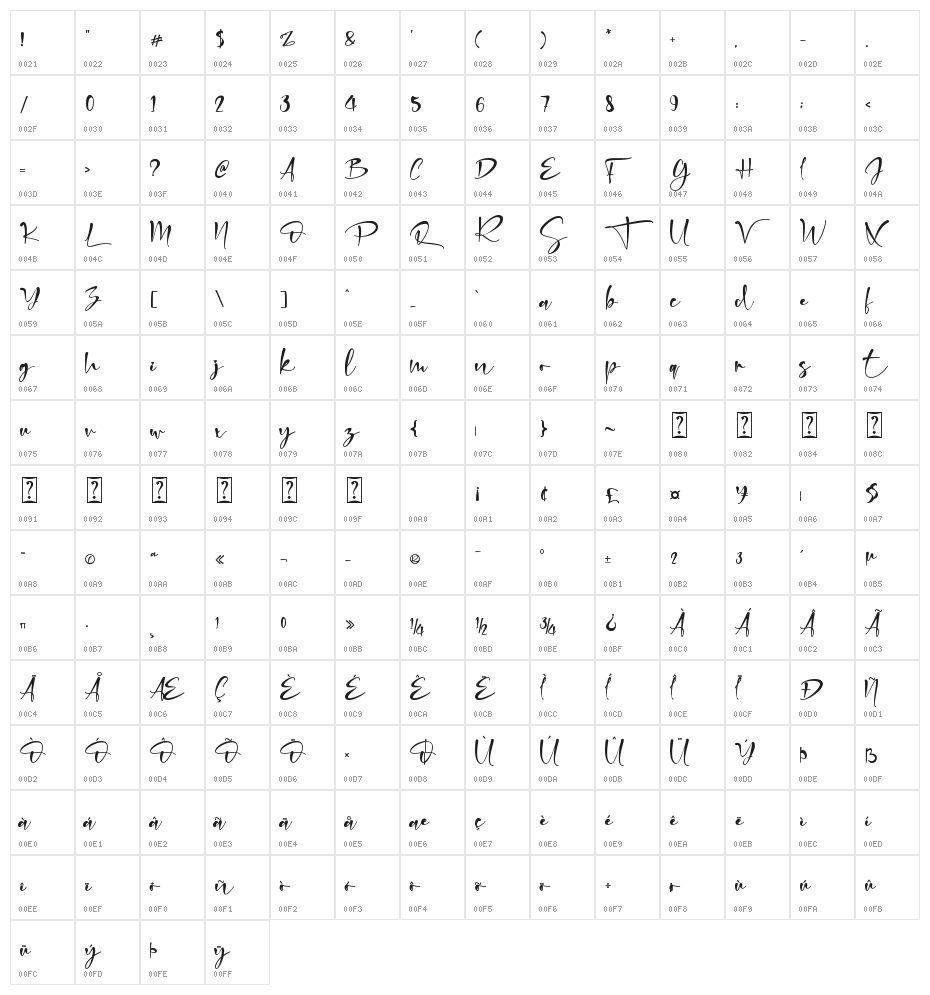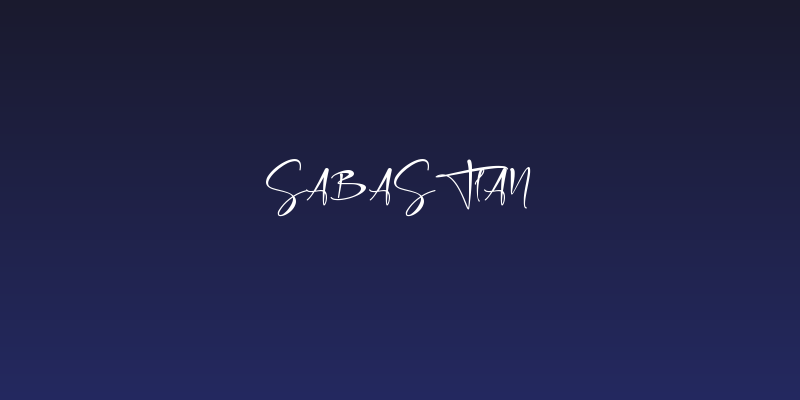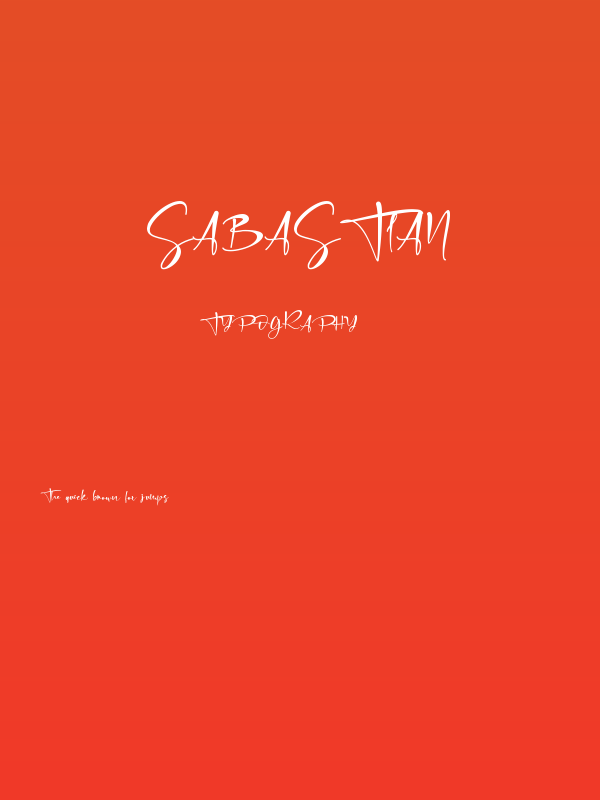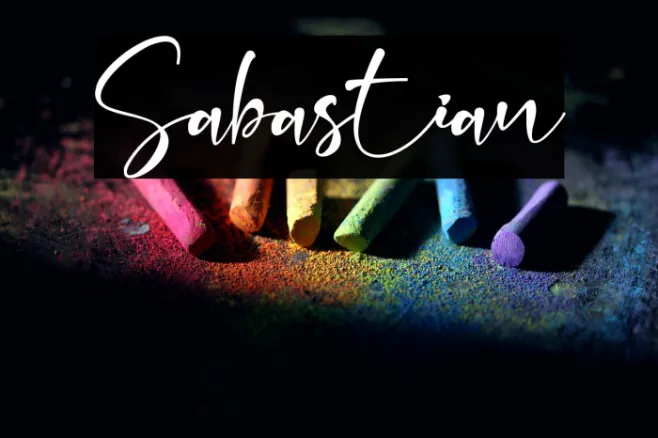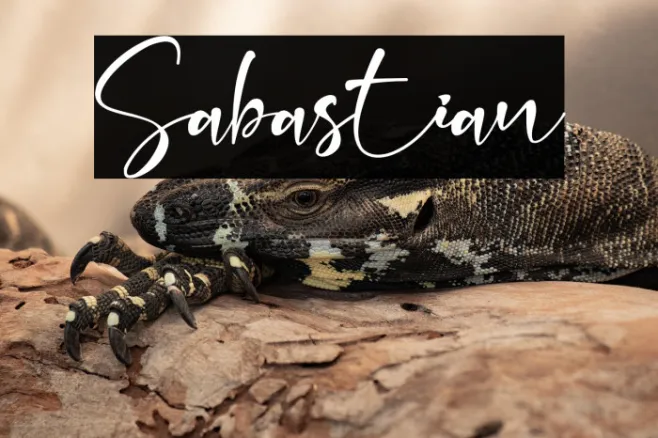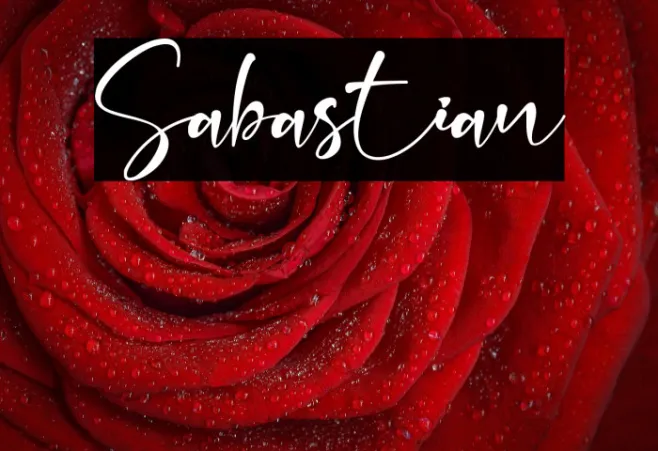
Sabastian Font
Sabastian Description
This font exudes a lively and expressive character, with its flowing script style that mimics the elegance of handwritten calligraphy. The uppercase letters are bold and dynamic, featuring sweeping curves and loops that give a sense of movement and grace. The lowercase letters maintain a consistent fluidity, with varying stroke widths that add a touch of sophistication. The numerals are equally stylish, complementing the overall aesthetic with their rounded forms. Special characters are thoughtfully designed to match the font's artistic flair, making it suitable for creative and decorative purposes.